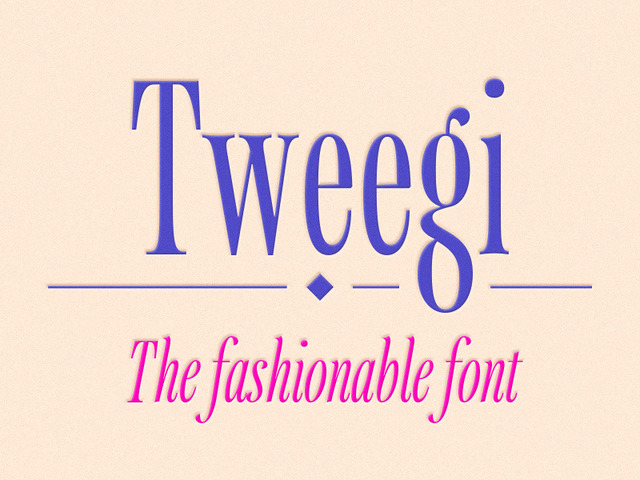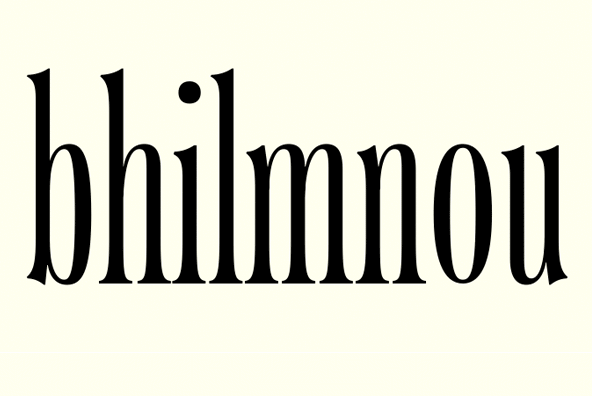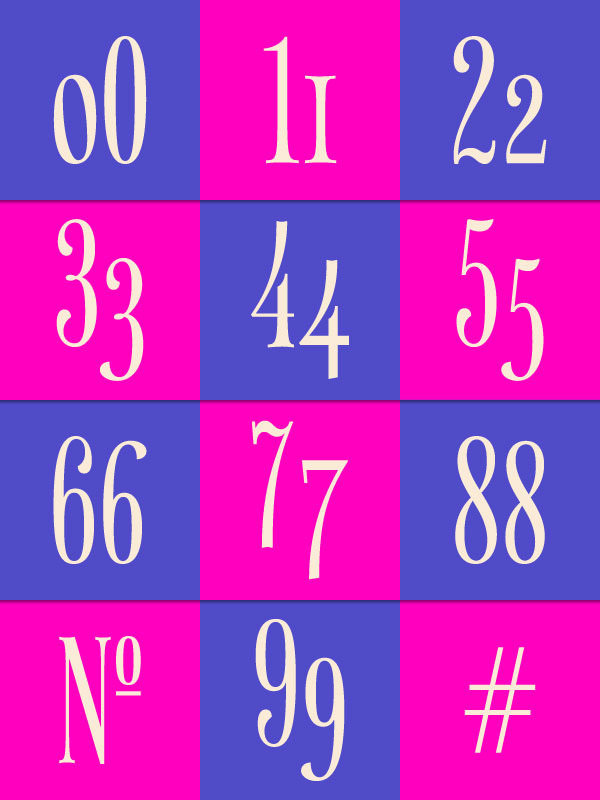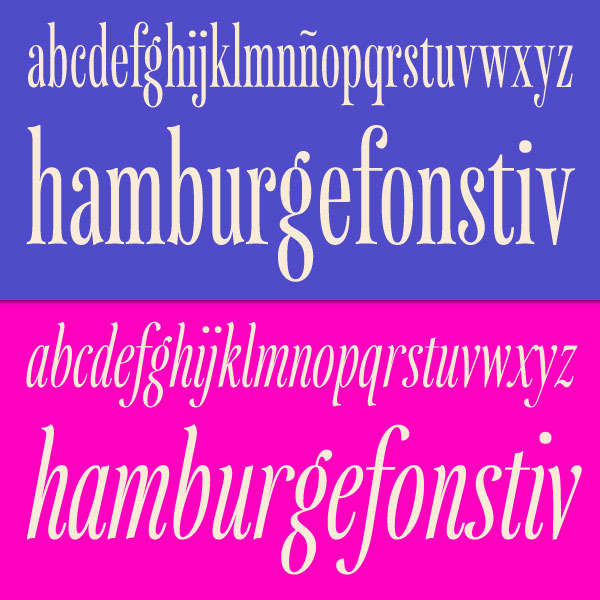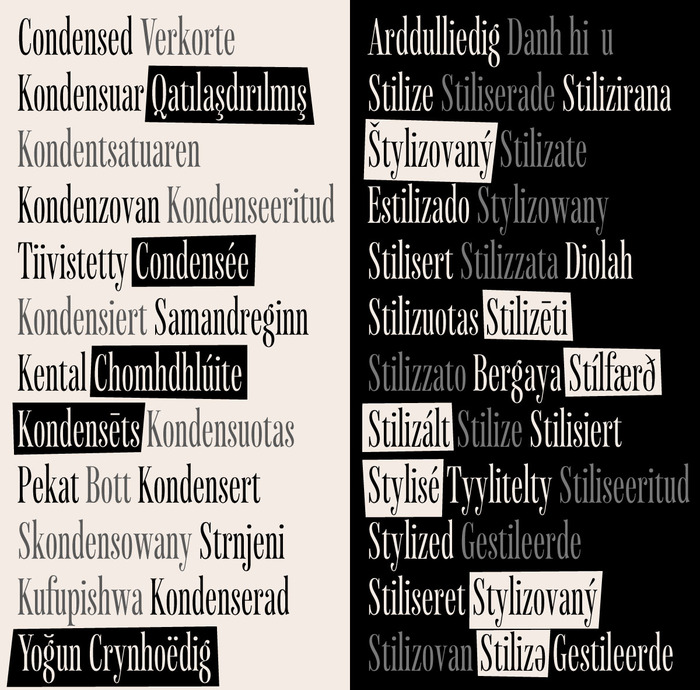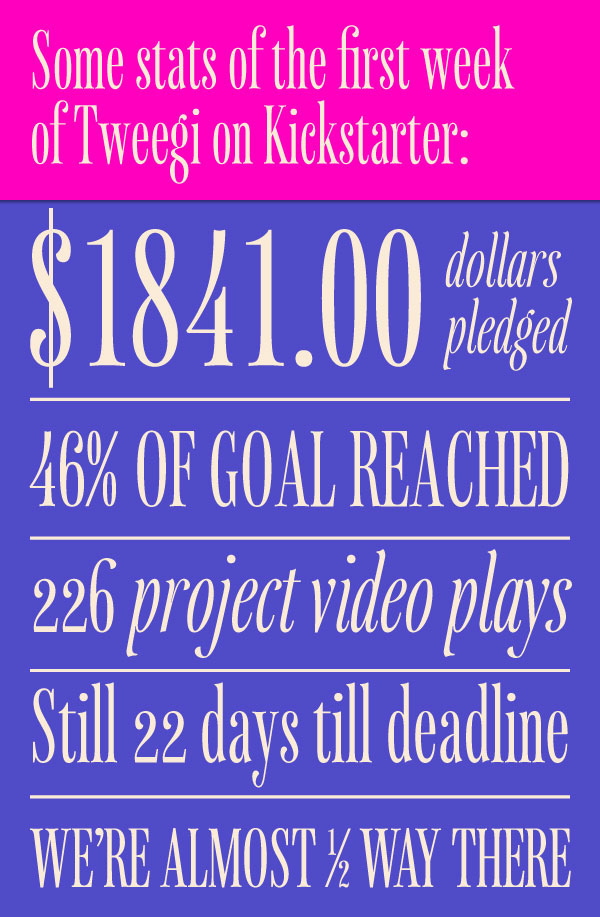
Tweegi is a super condensed typeface family with an stylish and classic look!
Tweegi is a super-condensed typeface family with Regular and Italic styles, intended for use in headlines, highlights and short paragraphs. It has a fashionable and classic look that is inherited from the Caslon types, mixed with contemporary and friendly approach. It has been designed to work in both web and print media at display sizes.
The idea for making a font comes from the most exotic places, it’s not just some sketches made with a pencil on a paper, sometimes by looking at a picture you can have the idea that finally ends being a type design project. In this case the original idea for Tweegi comes from 2009 when I made an experimental super compressed monoline font called Super C:
This Super C font came from watching the picture of a really skinny model, that in someway shocked me. One day late last year, I was reviewing some of my earlier type design work, and looking for fonts that I could update with the knowledge I have acquired over the years working on fonts.
When I looked back at Super C, I thought that I should try to give it a more feminine and delicate look that could work better with my original concept. Adding serifs and a strong stroke contrast (so some parts of the letters are much thicker than the others) seemed to be the logical way to go. The results is the first prototype for Tweegi!
As soon as you start a new project, new challenges come with it, in this case it was impossible to maintain the same with of the font - it became unreadable. New proportions were required, so I started drawing again. Right now Tweegi has had 20 revisions since then. Type design is a really dynamic process, and every revision brings new things to consider.
The project will perfect the design and increase language support. The planned character set will have over 700 glyphs to supports at least 105 latin languages. Typographic extras like small caps and old style, tabular and proportional numbers will be included as OpenType Features. Of course this work will be done with equal care and attention for both styles.
If the project reaches beyond the goal, my first stretch goal is to develop a set of regular and discretionary ligatures and contextual alternates, to help you make your headline shine. The amount of these will depend on how much more funding is raised by this Kickstarter.
Yes Tweegi covers 103 languages, Afar, Afrikaans, Albanian, Azerbaijani, Basque, Belarusian, Bislama, Bosnian, Breton, Catalan, Chamorro, Chichewa, Comorian, Czech, Danish, Dutch, English, Esperanto, Estonian, Faroese, Fijian, Filipino/Tagalog, Finnish, Flemish, French, Gaelic (Irish / Manx / Scottish), Gagauz, German, Gikuyu, Gilbertese/Kiribati, Greenlandic, Guarani, Haitian_Creole, Hawaiian, Hungarian, Icelandic, Igo/Igbo, Indonesian, Irish, Italian, Javanese, Kashubian, Kinyarwanda, Kirundi, Latin, Latvian, Lithuanian, Luba/Ciluba/Kasai, Luxembourgish, Malagasy, Malay, Maltese, Maori, Marquesan, Marshallese, Moldovan/Moldovian/Romanian, Montenegrin, Nauruan, Ndebele, Norwegian, Oromo, Palauan/Belauan, Polish, Portuguese, Quechua, Romanian, Romansh, Sami, Samoan, Sango, Serbian, Sesotho, Setswana/Sitswana/Tswana, Seychellois_Creole, SiSwati/Swati/Swazi, Silesian, Slovak, Slovenian, Somali, Sorbian, Sotho, Spanish, Swahili, Swedish, Tahitian, Tetum, Tok_Pisin, Tongan, Tsonga, Tswana, Tuareg/Berber, Turkish, Turkmen, Tuvaluan, Uzbek/Usbek, Wallisian, Walloon, Welsh, Xhosa, Yoruba, Zulu.